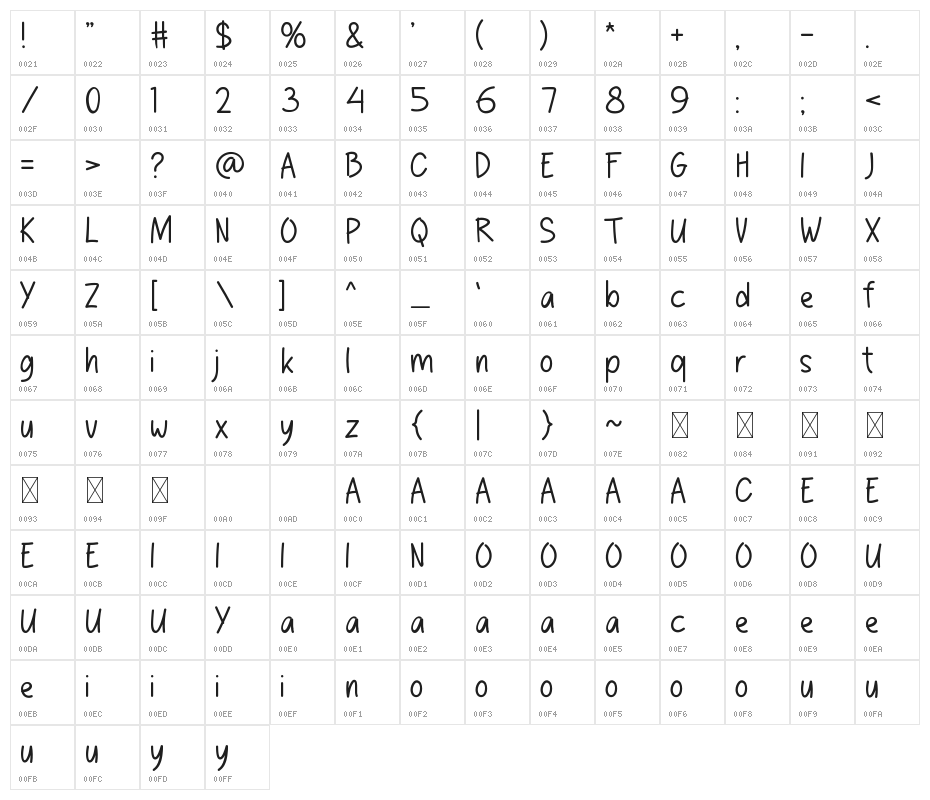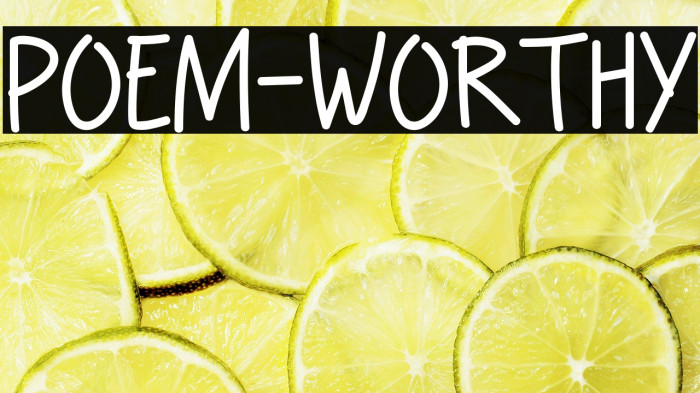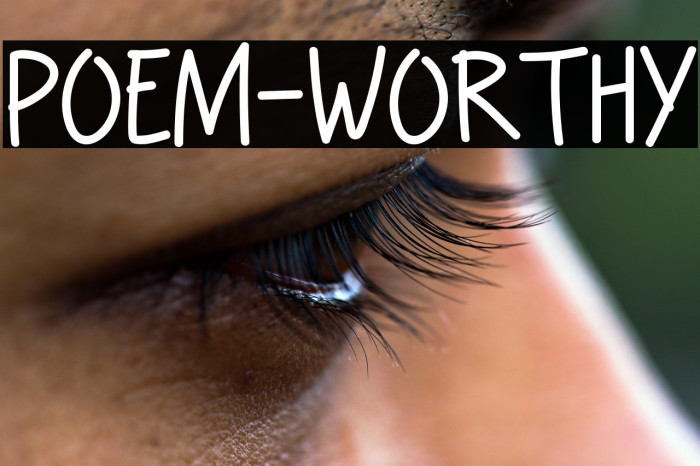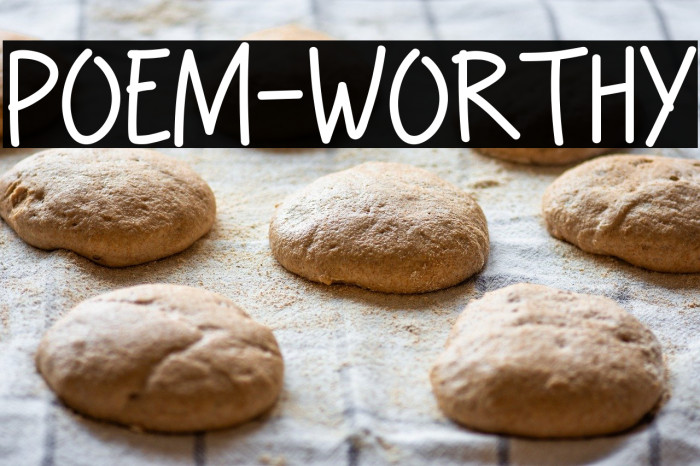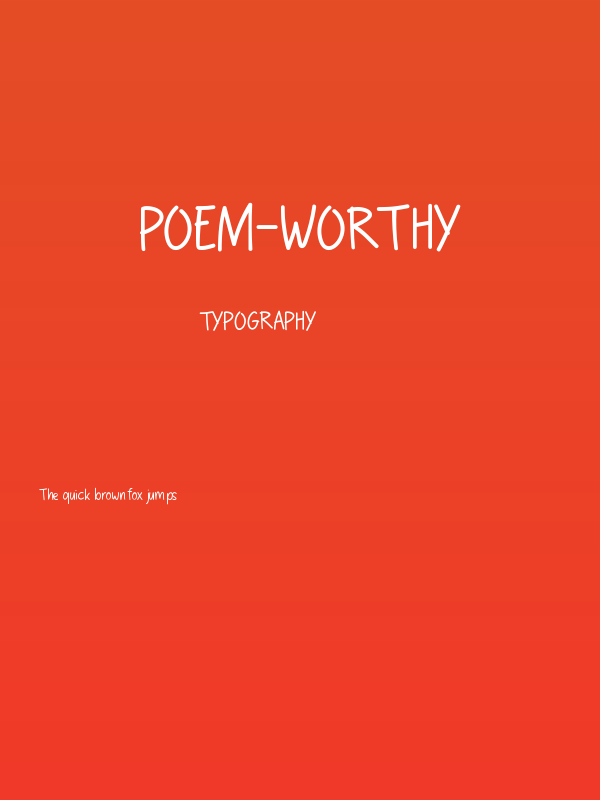
POEM-WORTHY Font
POEM-WORTHY Description
A playful, handwritten font with a casual and friendly appearance. The letters are rounded and slightly irregular, giving it a personal touch.
| Overall Style | Casual and friendly |
| Use Case | Informal text, creative projects |
| Proposed Projects | Greeting cards, children's books, informal invitations. |